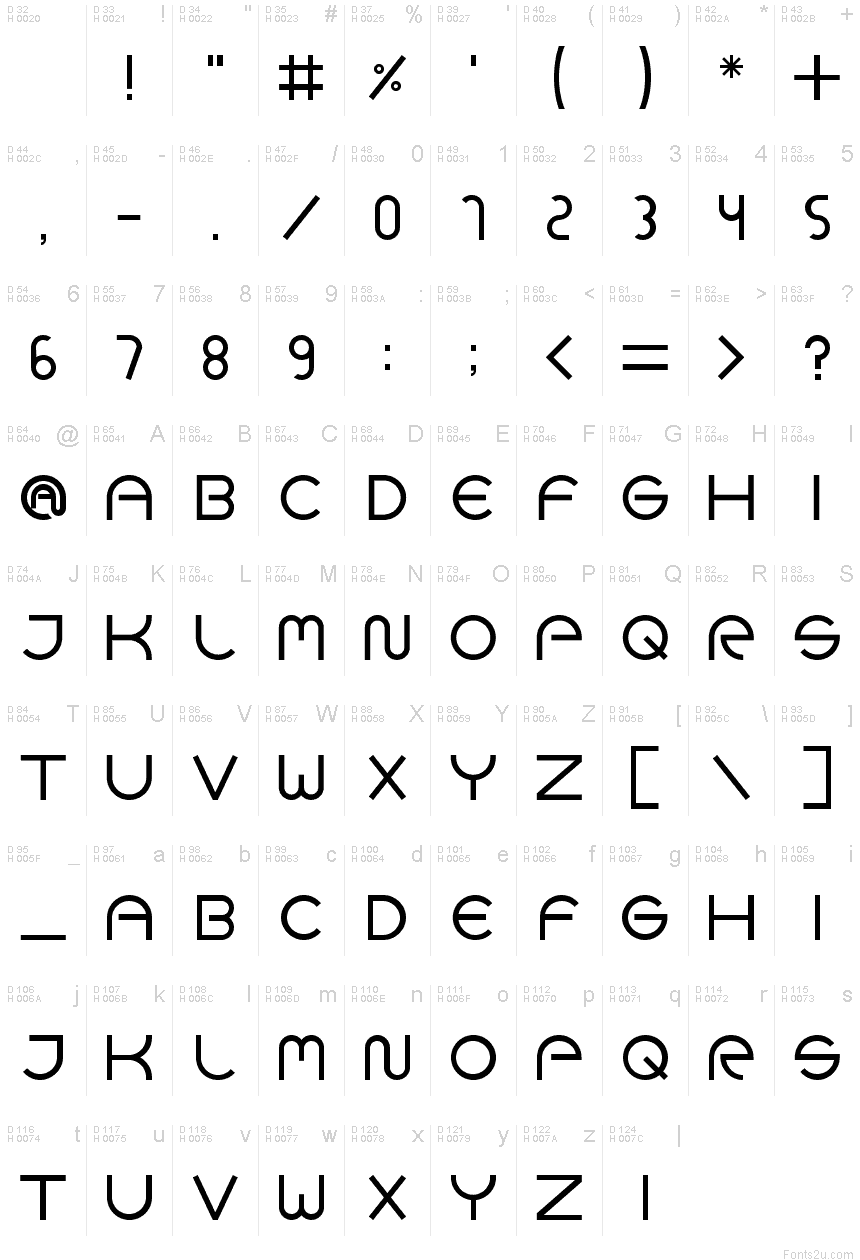
Goca logotype beta
remember, this is only a beta version... I will upload one with a better kerning later on ;)
Made & designed by Jonas Borneland Hansen "dafo".
The Goca logotype beta is a font designed to be used in a logo.